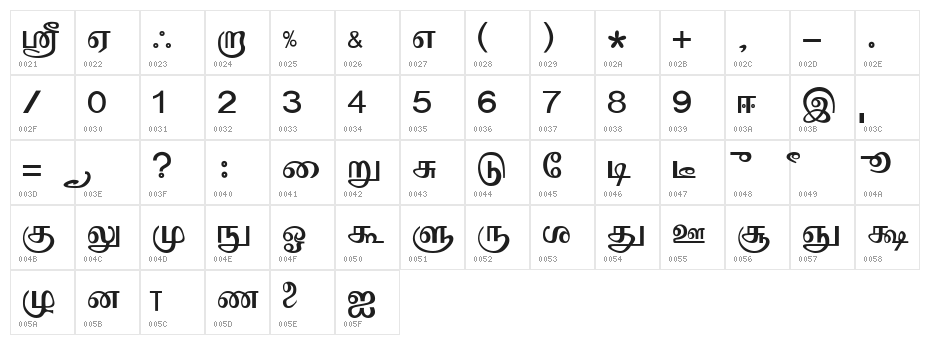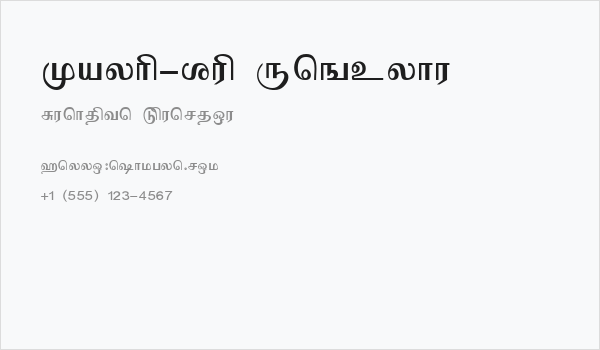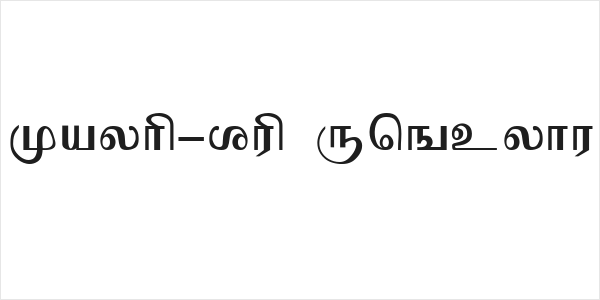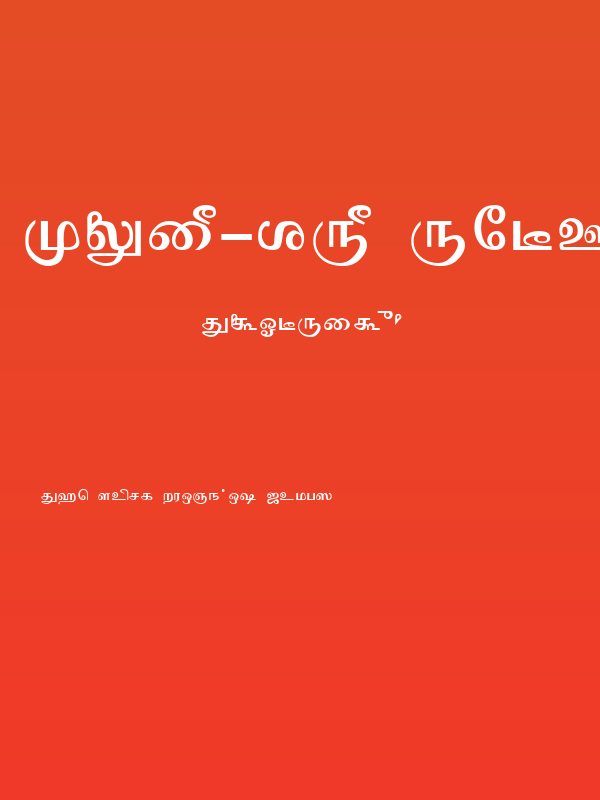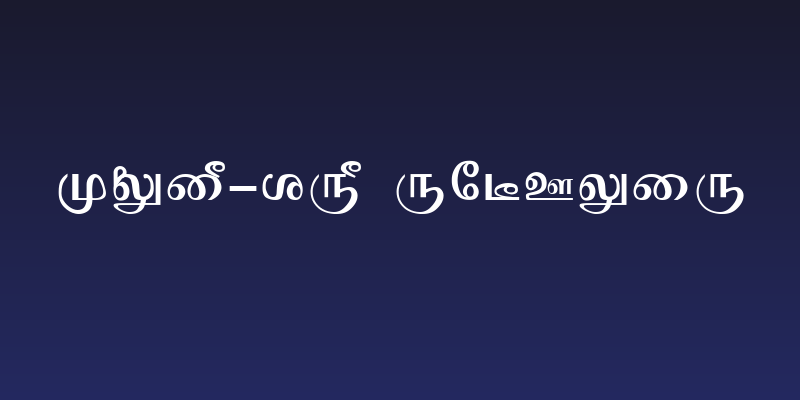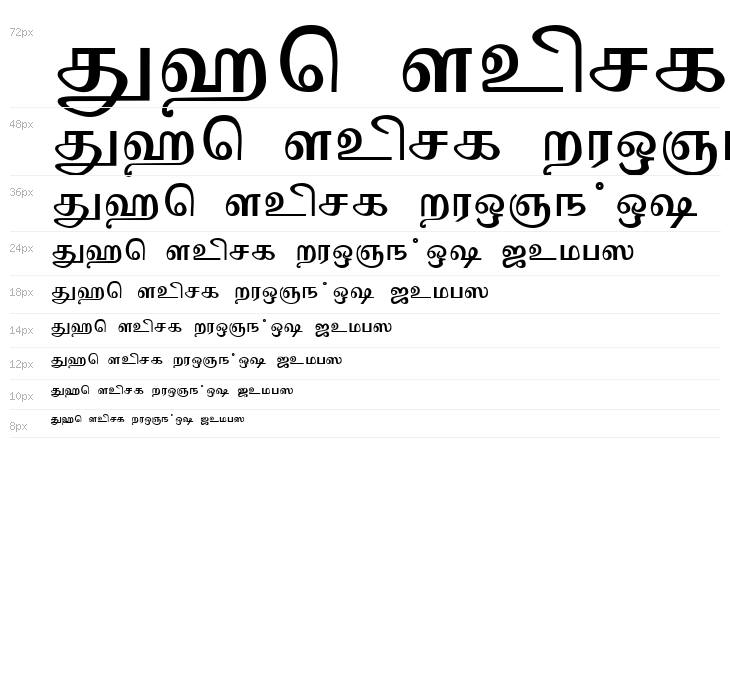
Mylai-Sri Regular Font
Mylai-Sri Regular Description
This font features a distinctive style that combines traditional elements with a modern twist. The characters are elegantly crafted with a mix of thick and thin strokes, providing a balanced and harmonious appearance. The script is highly legible, making it suitable for both display and body text. The numerals are clear and bold, ensuring readability. Special characters are designed with unique flair, adding a decorative touch. This font is versatile, suitable for various design projects that require a blend of tradition and modernity.